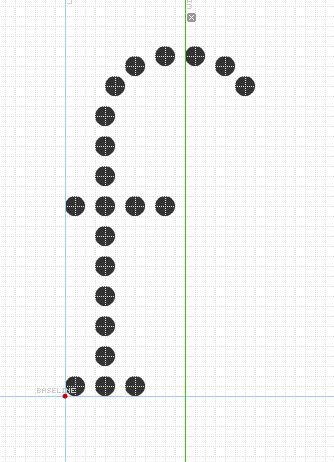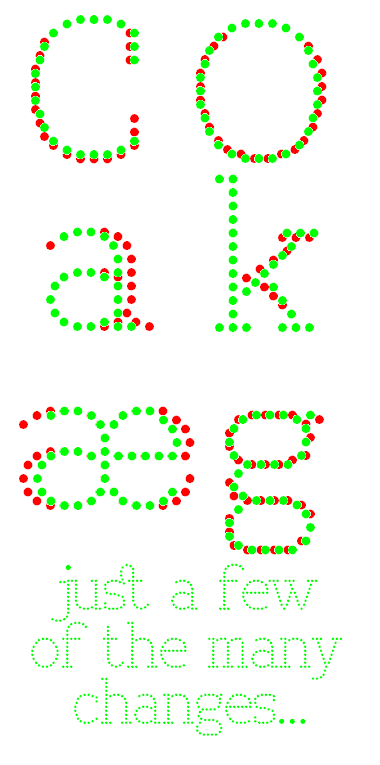
• A serif font made of dots. Suggestions are welcome.
UPDATES:
07/06/13-07/07/13 I went over the font and tidied it up. Adjusted spacing on letters like V and q, added or erased dots to letters such as a and f, made the tittles and such bigger, and refined letters like O and g. V1.2.0
10/01/13 More refining, more refining... Each time I come back, I see things that need improving. V1.3.0
12/19/13 My biggest update yet (literally). I've increased the circles' size from two to four units, making overshoots and much more possible. Every character has been reworked to fit the new size, and the font is now generally more condensed. V2.0
05/14/14 Tweaked many shapes with the nudge tool, and adjusted the 4 to have serifs and a lower crossbar. V2.1
05/17/14 Big edit today. A large portion of the lowercase, as well as some of the uppercase, has been narrowed to match the rest of the font.
05/21/14 M, N and accents updated a bit more.
09/27/18 Fixed the acute on ý (it was previously a grave).
Looks good, just needs some refining to make it more balanced. M/b/d/p/q look a bit narrow, and some curves could be better, like in C, S, 2. k's arm should be lower, and g might look better if the bottom loop is bigger than the top one. The space character could be wider too. Keep it up!
@Yautja: Thank you for your constructive criticism. I've made those changes, and I'm working on the rest of the numbers and punctuation.
I think the 'f' needs a bit of negative kerning, so that it doesn't leave too large a space when used with curved characters. You would need to be careful with this in relation to the 'i' and 'l', but I think this is a good compromise ...
@p2pnut: Thank you for the suggestion. I didn't adjust the kerning quite as far as you suggested, because it would overlap letters like 'b' and 'h'. The way it is set now, the last circle in the 'f' matches up with the top serifs in the uppercase 'B', 'D' and so on, so it doesn't look like an overlap.
I seemed to have a lot of critisism, but it looks great now! Love the &.
@yautja: Thank you! I just added the remaining symbols and most of the accents Saturday night. I was messing around with the ampersand for quite a while before I got one that looked right. I didn't have time to finish the accents. I'll finish them later today.
Oh, yeah, and that lowercase c is still a nightmare. I'll fix that too... :-)
This has developed into a really good font. fi and fl ligatures and tilde look excellent in your sample.
Over the last couple of days, I have redesigned more than half the font, making major changes to a bunch of letters. I raised the f's crossbar to x-height, made b, d, e, o, p and q thinner, and fixed the ugly a, as well as many more changes. I also added the new ligatures and made the isolated dots thicker. Suggestions are still welcome, of course...
I don't like the huge tittles on i and j, they don't fit. Other than that, AWE$ØME!!!
Thanks for the tip, winty. The tittles are now slightly smaller (3 grid squares instead of 4).
A comma looks strange though.
@architaraz: Thanks, I noticed that too. I've changed the comma back to the previous version.
Nearly perfect. the line abow small ý is wrong in my language (faroese/icelandic, but it is right abow á í ó ú Á Í Ó Ú Ý
I agree with Torsim33, the Y with accute should have an acute, not grave...
Whoops! Don't know how I missed that when adding accents. Thanks for the catch!